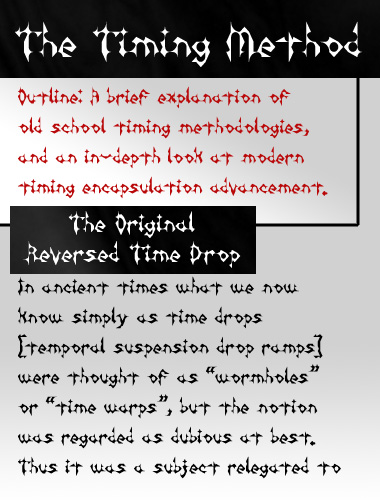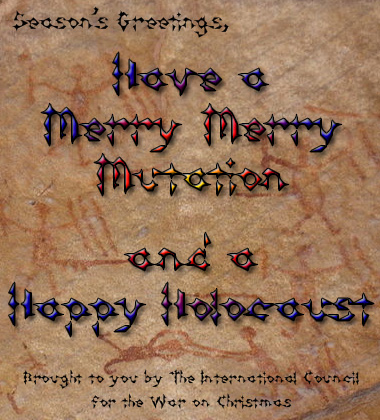
• Building this one was fun. Each character like a tiny puzzle. Well, it seems the missing space is fixed in the download. Now I can play with it, I see lots of places that need improving. Still a work in progress I think. I welcome any suggestions. Update: completely redesigned most of the Glyphs. I am much happier with this now.
i really like this, very original and fresh
@domald. Hey thanks, each character is only ~9 blocks (3x3) so it was fun figuring out how to make the shapes in such small space.
I think this font is pretty cool, the the spacing in between each letter is kinda big.
An intersting, individualistic font. Great sample.
Wow, it really seems like it doesn't matter one bit what I do with the character spacing. The spacing is perfect now, but when you DL the font it is completely messed up.
If anyone has any advice I would be very grateful. I actually want to use the fonts I have made, outside of FontStruct's little preview boxes.
Hello mr. FontLab Studio. Think you could fix up my hinting and spacing.
No problem mr. Line Between Nine, we'll have you fixed up in no time.